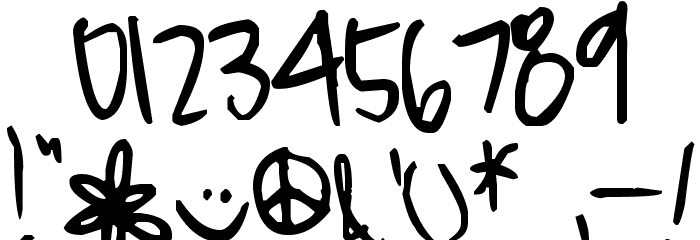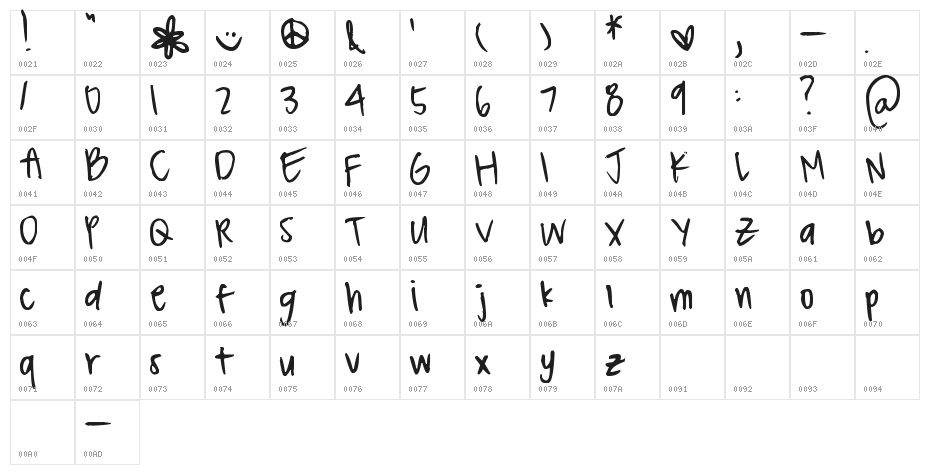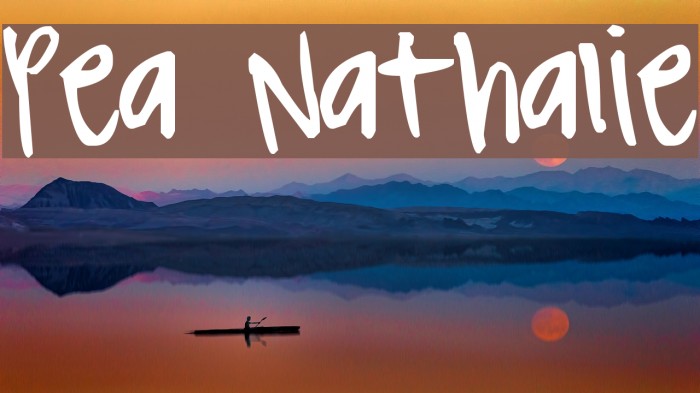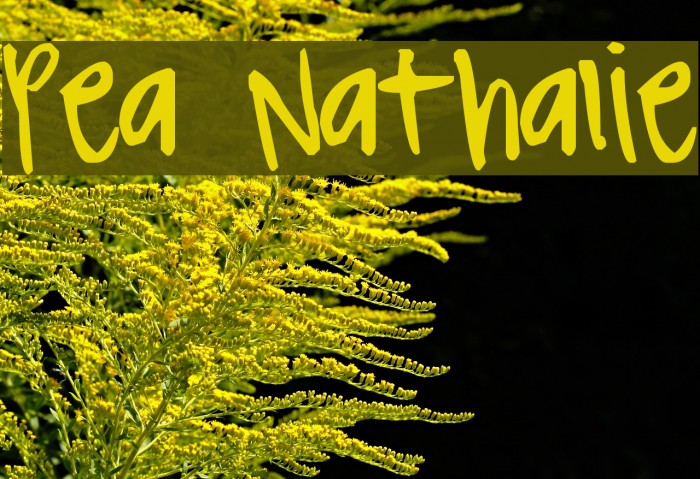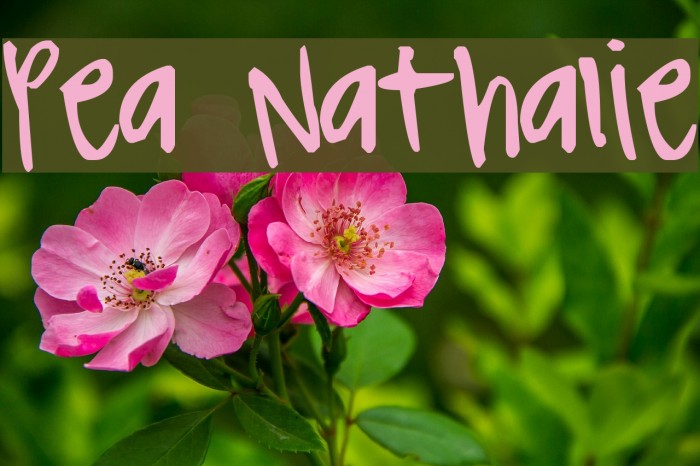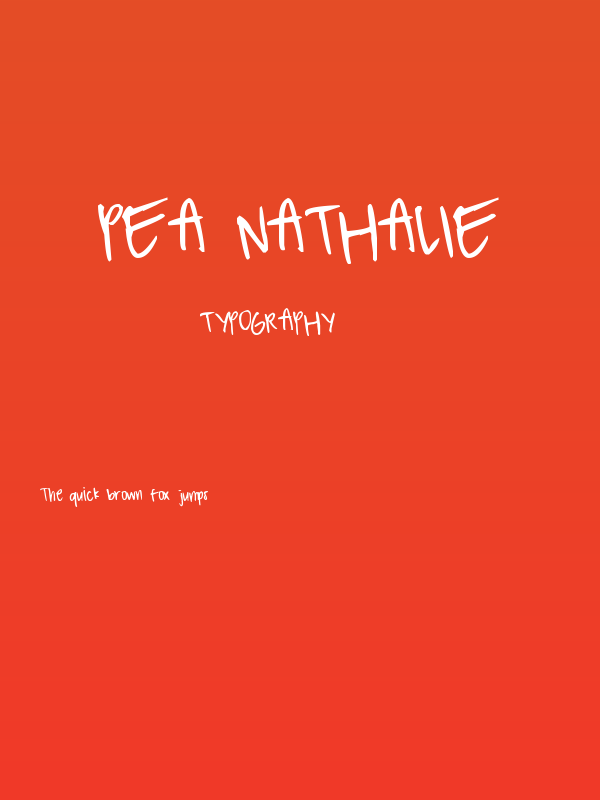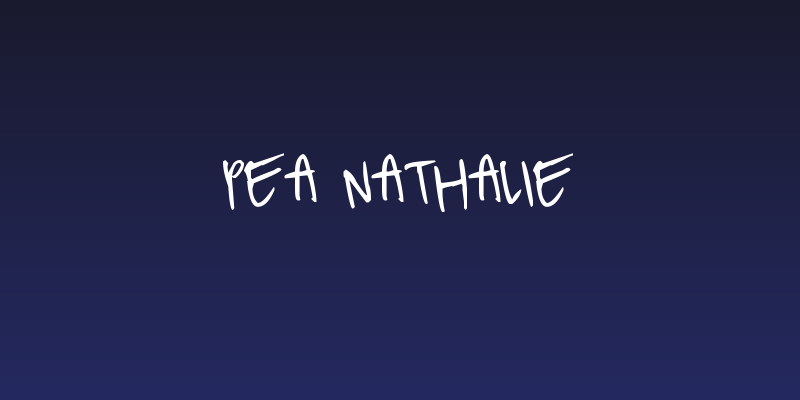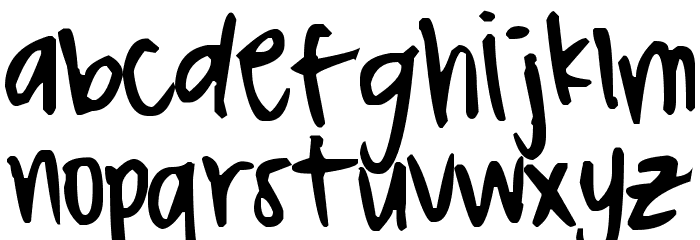
Pea Nathalie Font
Pea Nathalie Description
This font exudes a playful and casual handwritten style, characterized by its irregular, free-flowing strokes that mimic natural handwriting. The uppercase and lowercase letters maintain a consistent, informal aesthetic, with slightly exaggerated curves and loops that add a whimsical touch. The numerals and special characters follow the same lively design, ensuring a cohesive look across all text. The font's overall appearance is approachable and friendly, making it ideal for projects that require a personal, human touch.
| Use Case | Headlines, Informal text, Personal projects |
| Proposed Projects | Ideal for greeting cards, personal letters, children's books, and informal branding projects. |